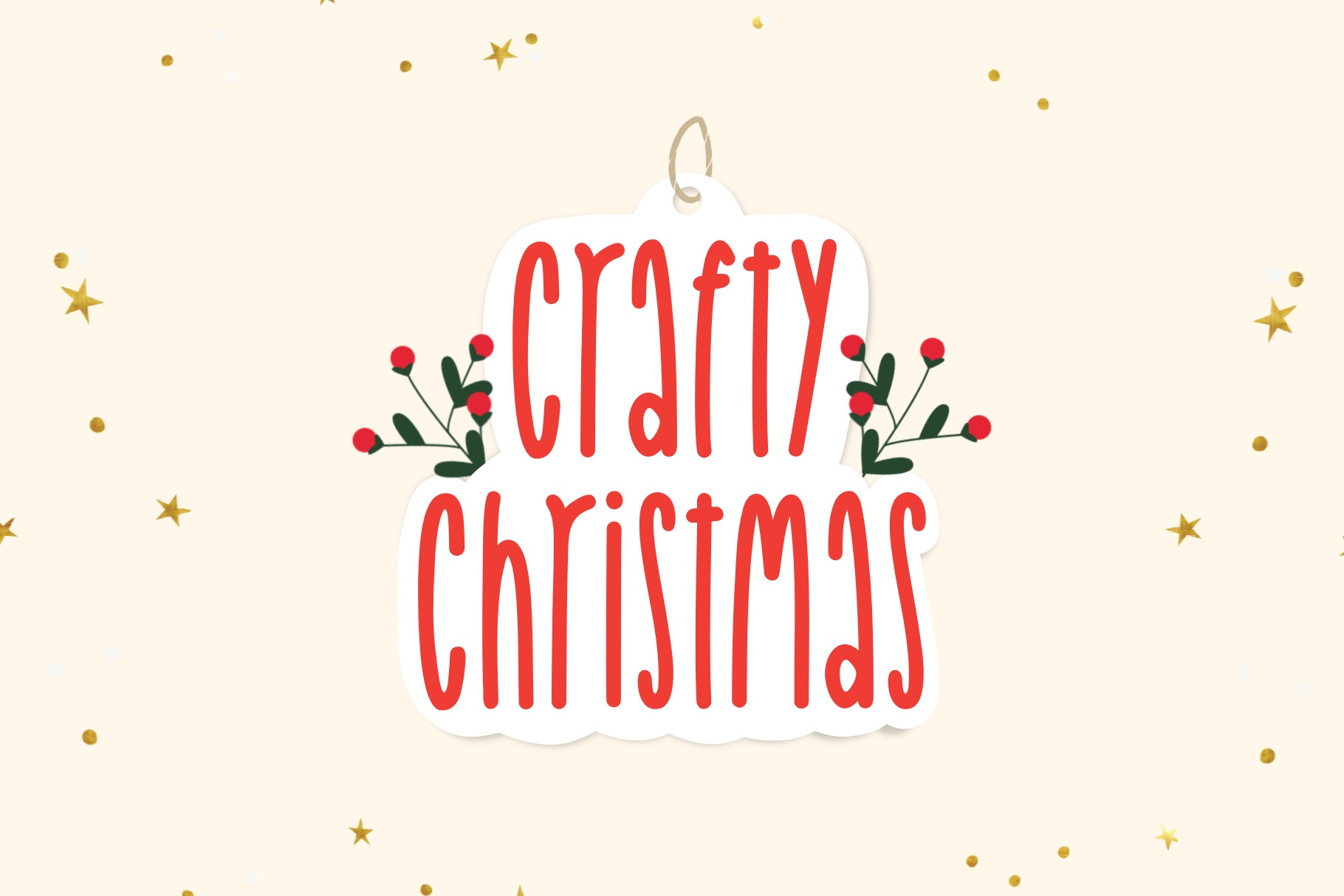
Crafty Christmas skinny font
Crafty Christmas, a skinny cute handwritten font. You can use this font in various projects - blog posts, digital planner, invitations, greeting cards, planners, photo albums, decorations and much more. Thank you :)